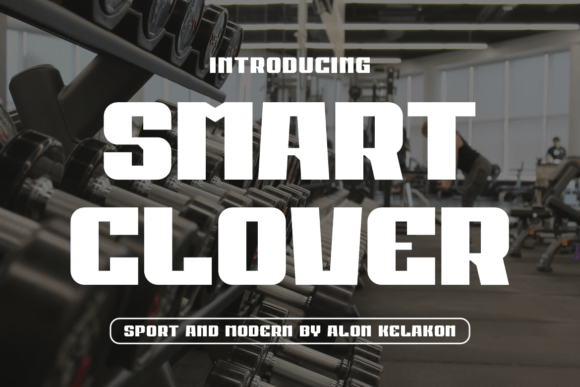
Introducing Smart Clover Font, a cutting-edge sans serif typeface that will revolutionize your designs. Crafted with precision and passion, this font exudes confidence and sophistication, leaving a lasting impression on every project.
Embrace the power of Smart Clover Font and experience a world of creative possibilities. Whether you're crafting captivating headlines, elegant body text, or eye-catching logos, this font will elevate your words to new heights. Its bold and assertive nature commands attention, ensuring that your message resonates with your audience.
Step into the future of typography with Smart Clover Font. Its clean lines and sharp angles create a striking visual impact that will set your designs apart. Let the power of this font ignite your imagination and transform ordinary words into extraordinary works of art.